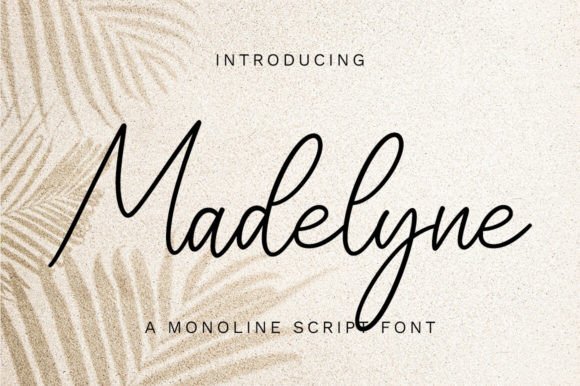
Discover the sophisticated charm of the Madelyne font, a captivating and poetic script that adds a touch of elegance to your creative endeavors. With its meticulously crafted curves and swashes, Madelyne captures the beauty and grace of handwritten calligraphy, inviting you to express your individuality through stunning typography.
Embrace the versatility of this exquisite font, perfectly suited for a plethora of applications. Whether you seek to design captivating logos that leave a lasting impression, elevate your branding with a touch of sophistication, or add a personal touch to your email signature, Madelyne effortlessly enhances your visual communication.
Crafted by the talented Nirmala Creative, Madelyne is not just a font; it's an art form. Each character is meticulously designed to exude charm and finesse, capturing the essence of true artistry. With its enchanting allure, Madelyne transforms ordinary words into captivating expressions, leaving an indelible mark on your audience.
Immerse yourself in the timeless beauty of Madelyne, a font that transcends trends and remains eternally elegant. Its enduring appeal lies in its ability to evoke a sense of nostalgia while maintaining a modern edge, making it the perfect choice for those who appreciate classic aesthetics with a contemporary twist.
Indulge in the boundless creative possibilities that await you with Madelyne. Let your imagination soar as you craft breathtaking wedding invitations that exude romance, design enchanting social media graphics that capture attention, or create heartfelt greeting cards that convey your deepest sentiments. The possibilities are endless, limited only by your own creativity.